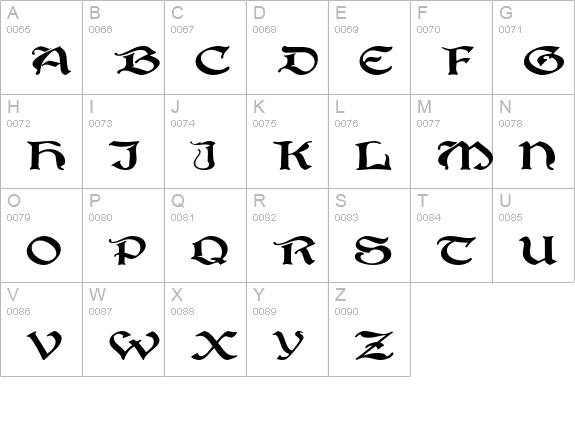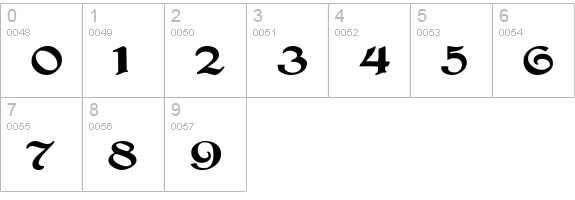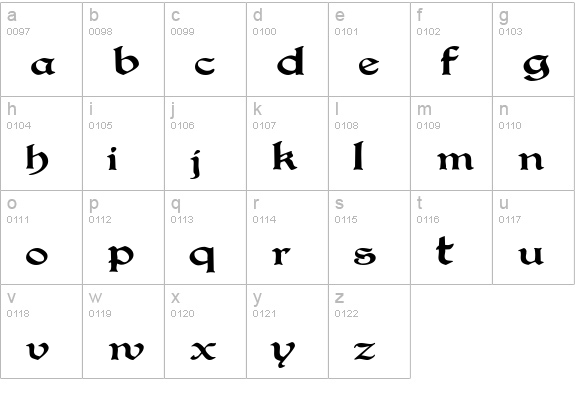
Gregorian Font Details
The Gregorian font is a classic and elegant typeface that exudes a timeless charm. Its graceful serifs and refined letterforms make it perfect for a wide range of design projects, from invitations to business cards to branding materials. The Gregorian font is versatile and stylish, lending a touch of sophistication to any text it adorns. What sets the Gregorian font apart is not just its aesthetic appeal, but also its accessibility. This stunning typeface is available for free download at FontsMarket.com, making it easy for designers and creatives to incorporate its beauty into their work without breaking the bank. With its generous availability and exquisite design, the Gregorian font is a must-have addition to any designer's font library.